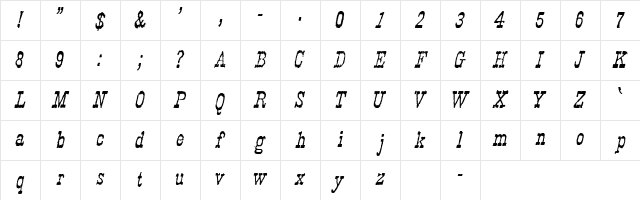
Complete Faywood Italic WF Regular glyph index. Displaying only characters natively supported by Faywood Italic WF Regular font.
Faywood Italic WF echoes the hand-painted signage and woodblock typography of the American frontier, with a warm, rugged personality. The slanted form adds forward momentum and visual energy.
Font Pairing: Combine Faywood Italic WF with a simple slab or neutral sans - period-accurate companions reinforce the vintage feel without competing for attention.
Pro Tip: Use Faywood Italic WF for short, impactful bursts of text - it shines in poster headlines and product names rather than extended copy.